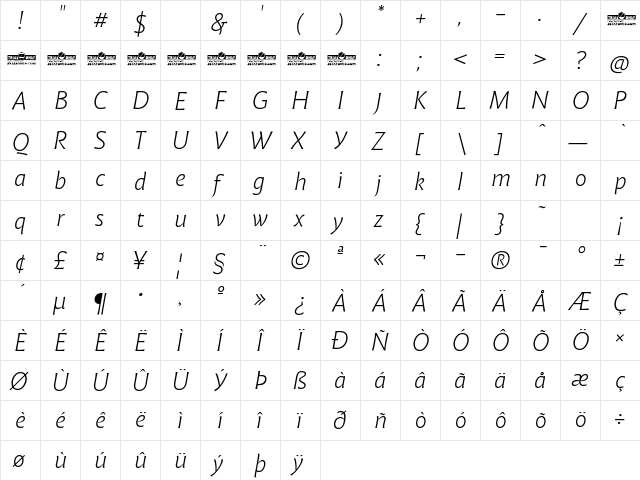
Malik Trial Light Italic
Design Context for Malik Trial Typeface
Malik Trial is a composed and adaptable typeface that performs quietly and consistently across a wide range of design contexts. The dynamic lean of this cut emphasises speed and emphasis in any layout. Its slender proportions lend an understated elegance to any composition.
Pro Tip: Try Malik Trial for annotation and caption copy alongside an upright companion — the contrast in angle creates a dynamic but ordered typographic system.